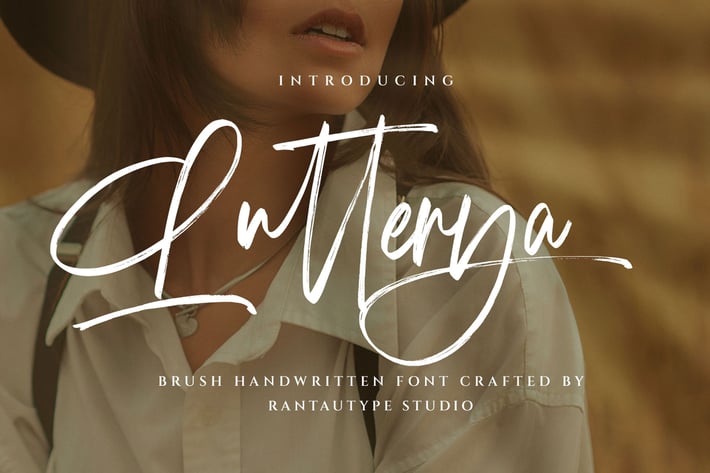
Lutterya Brush Handwritten Font
Lutterya is handwritten font with natural ink and perfect brush. Lutterya is a professional choice for any creative endeavor, creating, modern, chic, lifestyle design such as logotype, title, cover, branding, invitations, wedding designs, display and magazine, social media posts, advertisements, printed quotes, product packaging, corporate brand, product designs, labels, photography, watermarks, special events and any other project with handwritten touch.
+ Ligature and alternate